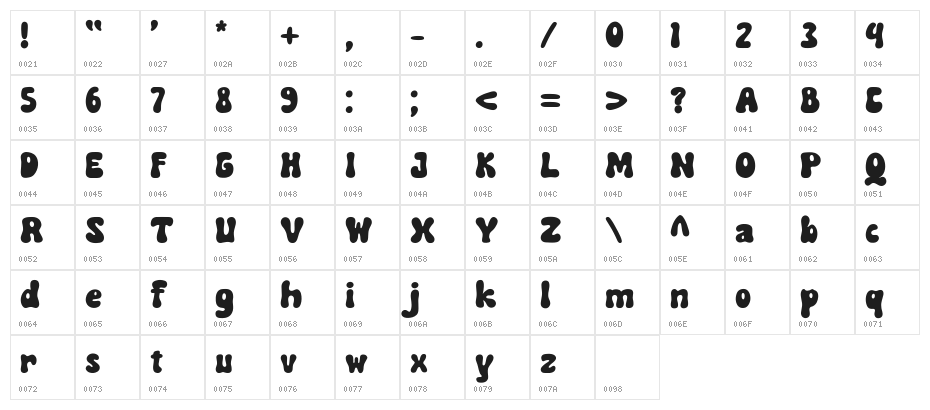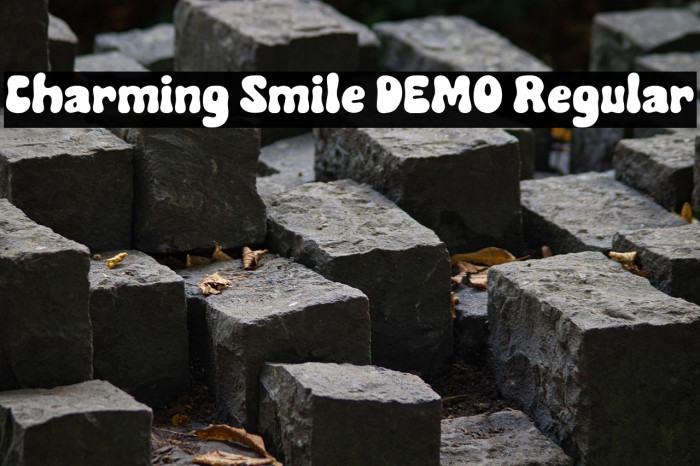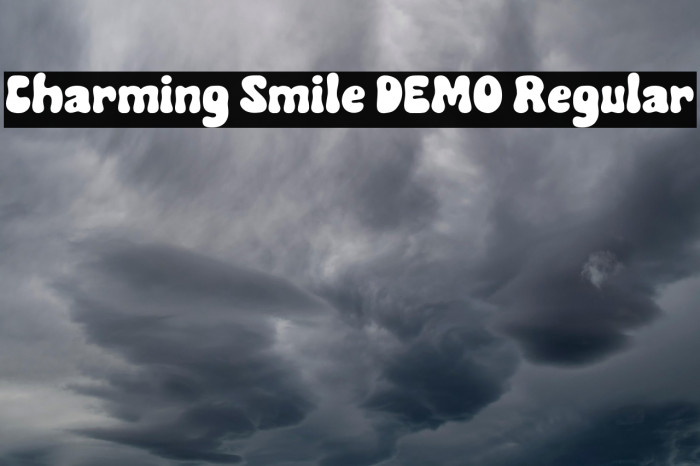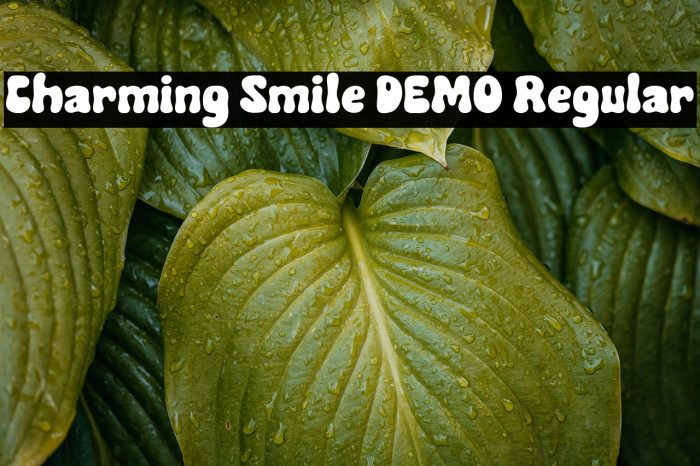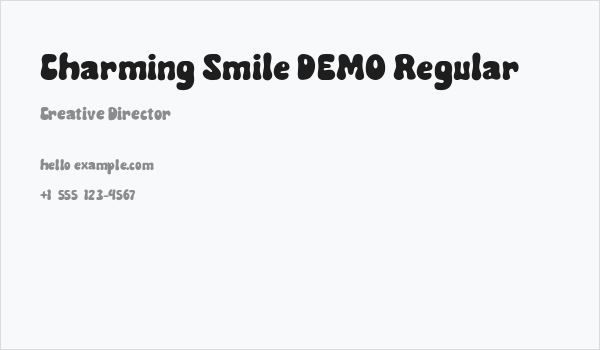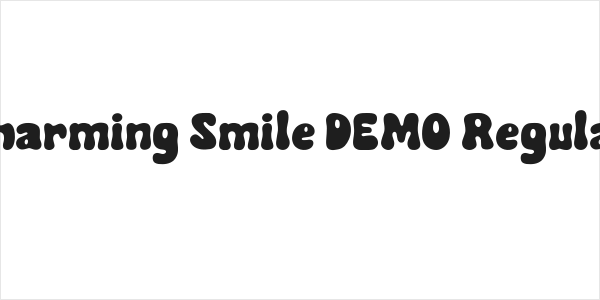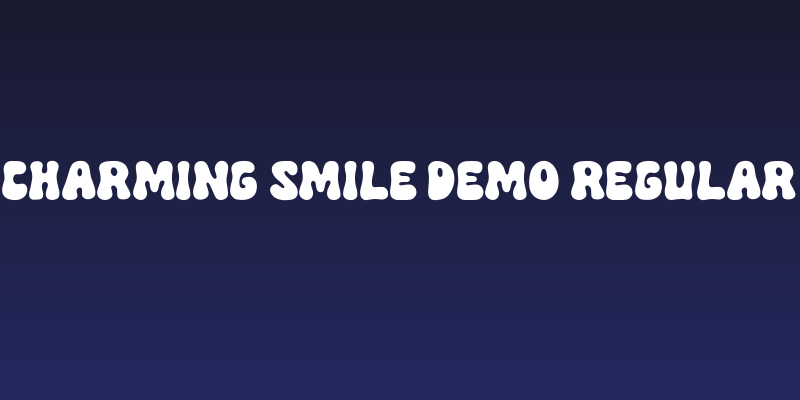
Charming Smile DEMO Regular Font
Charming Smile DEMO Regular Description
This playful and bold font features a bubbly, rounded style that exudes a sense of fun and whimsy. The characters are thick and substantial, with a soft, almost cartoonish appearance that makes them stand out. The strokes are consistent in width, giving the font a uniform look, while the rounded edges add a friendly and approachable feel. The font is highly legible, even at smaller sizes, making it versatile for various design applications. Its unique style is perfect for projects that aim to convey a sense of joy and creativity.